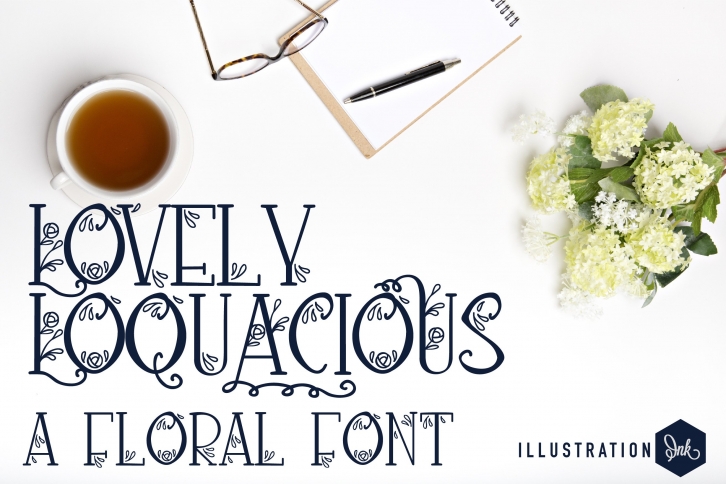
PN Lovely Loquacious is a beautiful font that was designed by Illustration Ink. It's a great choice for designers and creatives who need such a font. It was released on July 28, 2022 and the file size is 21.1 MB. PN Lovely Loquacious may give a more youthful, expressive and casual look to your project. It is a very beautiful, refined, elegant, and high-quality font.